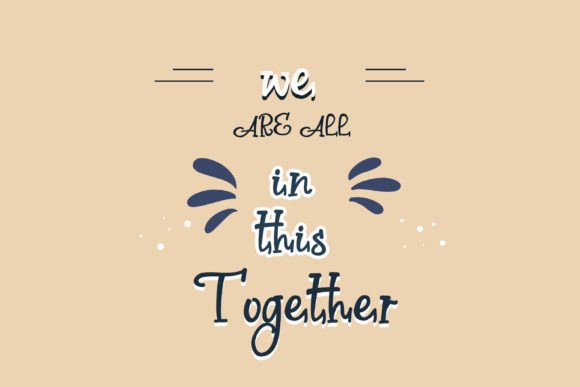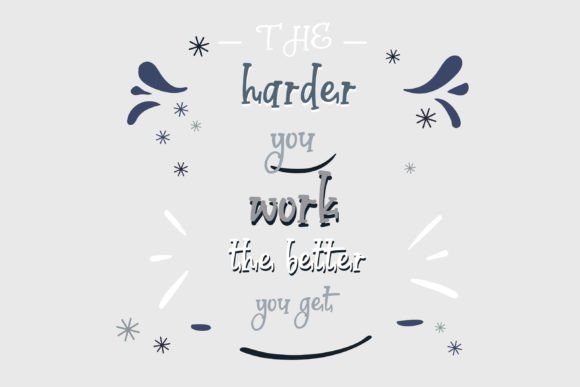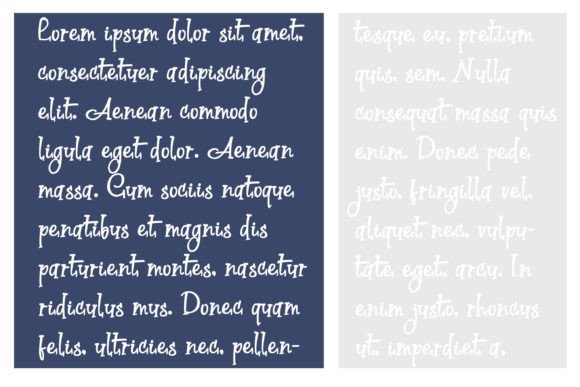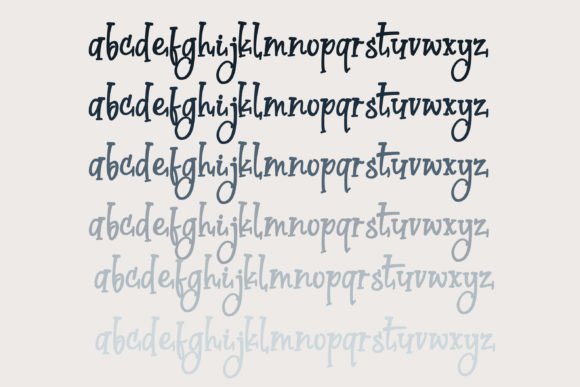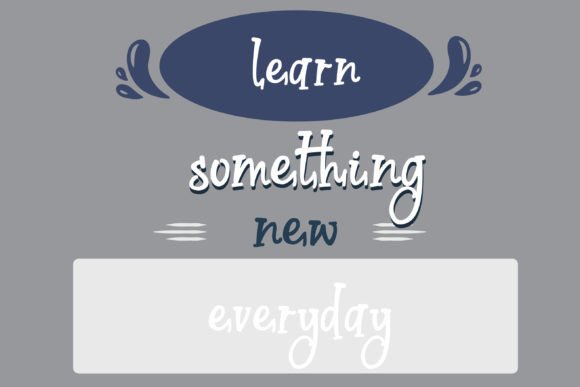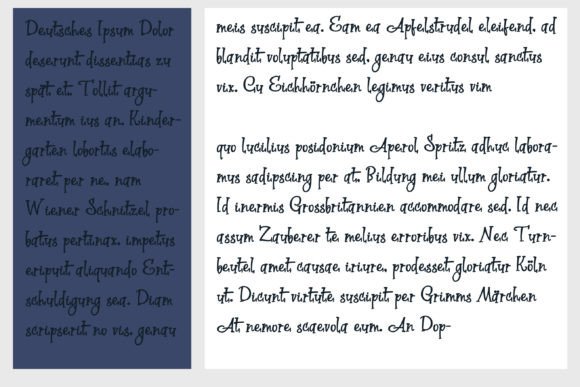
Introducing Cookie Crust Font: A Deliciously Unique Handwritten Print
Are you a designer or crafter looking for a font that adds a personal touch to your projects? Look no further than Cookie Crust Font, a hand-written print with added slab serifs that’s sure to make your designs stand out. In this article, we’ll take a closer look at what makes Cookie Crust Font so special and how you can use it to elevate your creative projects.
What is a Handwritten Font?
A handwritten font is a typeface that is designed to look like it was written by hand. It’s often used for invitations, greeting cards, and other items where a personal touch is desired. Handwritten fonts can add a level of warmth and personality to your designs that can be hard to achieve with more traditional fonts.
The Unique Characteristics of Cookie Crust Font
Cookie Crust Font is a unique and eye-catching handwritten font that features added slab serifs. The slab serifs give the font a distinctive look that’s both modern and playful. The hand-written print style of the font makes it perfect for designers and crafters who want to add a personal touch to their projects.
Uses for Cookie Crust Font
Cookie Crust Font is a versatile font that can be used for a wide range of projects. Here are a few ideas to get you started:
- Invitations: Use Cookie Crust Font to create custom invitations for weddings, birthday parties, and other special events.
- Greeting Cards: Add a personal touch to your greeting cards with Cookie Crust Font.
- Signs: Use Cookie Crust Font to create eye-catching signs for your business or home.
- Paper Crafts: Add a touch of personality to your paper crafts, such as scrapbook pages and card making projects.
Benefits of Using Cookie Crust Font
There are many benefits to using Cookie Crust Font in your designs. Here are a few:
- Unique Look: Cookie Crust Font has a unique and eye-catching look that’s sure to make your designs stand out.
- Personal Touch: The hand-written print style of the font adds a personal touch to your designs.
- Versatility: Cookie Crust Font can be used for a wide range of projects, from invitations to signs.
Tips for Using Cookie Crust Font
Here are a few tips for using Cookie Crust Font in your designs:
- Use it for Headings: Cookie Crust Font is perfect for headings and titles.
- Mix it with Other Fonts: Try mixing Cookie Crust Font with other fonts to create a unique look.
Cookie Crust Font is a unique and versatile handwritten font that’s perfect for designers and crafters who want to add a personal touch to their projects. With its hand-written print style and added slab serifs, Cookie Crust Font is sure to make your designs stand out. Whether you’re creating invitations, greeting cards, or signs, Cookie Crust Font is a great choice.